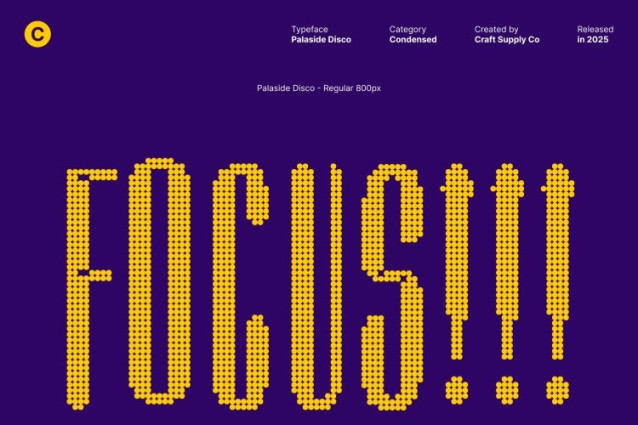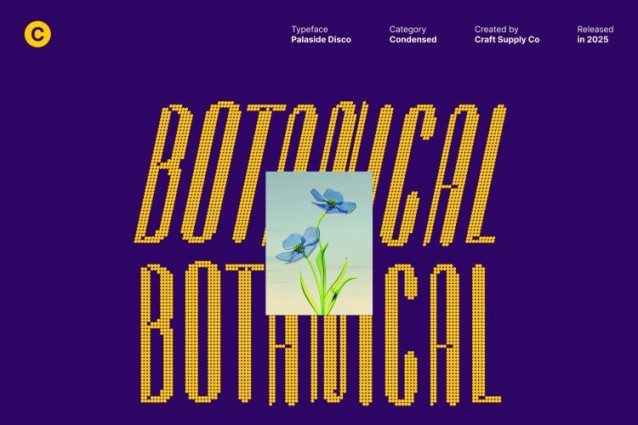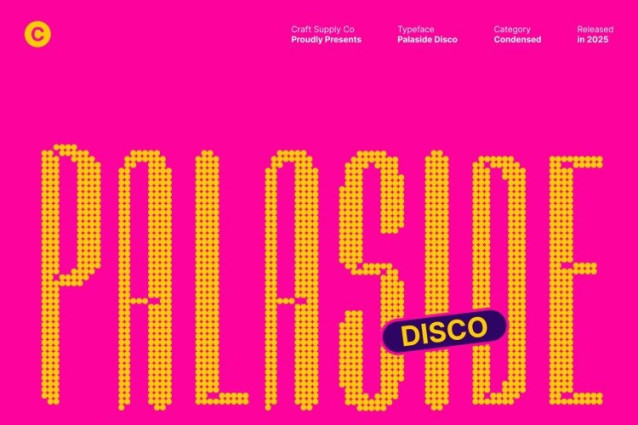
Palaside Disco Font
Palaside Disco Font This condensed display font features sleek, slim edges that create a refined and modern typographic presence. Its carefully structured forms maintain clarity and readability while delivering a stylish, contemporary appearance suitable for a variety of design applications.
Inktrap Details and Disco Style for Glamour
Enhanced with inktrap details and a disco effect, the font exudes personality and visual interest. The inktrap adds subtle artistic complexity, while the disco sparkle brings a glamorous, festive energy, making each character stand out with style and flair.
Perfect for Branding, Posters, and Modern Design
Ideal for sophisticated branding projects, bold poster headlines, and modern design layouts, this font combines structural precision with expressive artistry. Its condensed form ensures maximum impact in tight spaces, without sacrificing elegance or readability.
Structured, Artistic, and Visually Captivating
By blending refined condensed shapes with inktrap detailing and disco sparkle, this typeface delivers a unique balance of professionalism and artistic individuality. It’s perfect for designers seeking a modern, glamorous, and visually engaging display font.